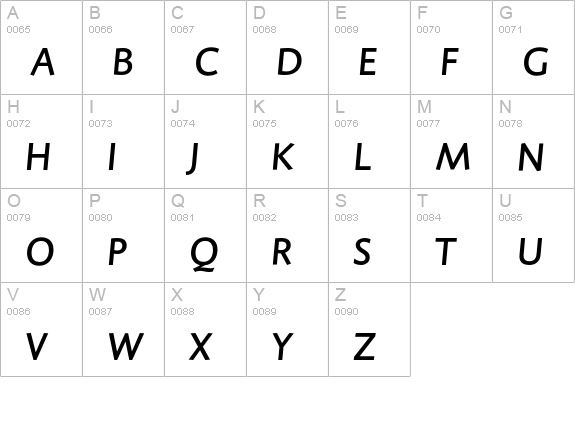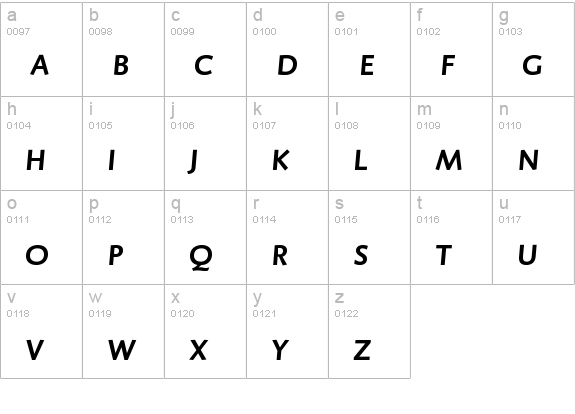
DTLCaspariTCaps-MediumItalic Font Details
DTLCaspariTCaps-MediumItalic is a sophisticated and elegant font that exudes a sense of class and refinement. With its medium weight and italic style, this font is perfect for adding a touch of distinction to any design project. The tall caps and sleek lines of DTLCaspariTCaps-MediumItalic make it stand out while maintaining a sense of professionalism. Best of all, this exquisite font is available for free download at FontsMarket.com. Whether you're working on a branding project, invitation design, or any other creative endeavor, DTLCaspariTCaps-MediumItalic is sure to elevate your work to the next level. Don't miss out on the opportunity to enhance your projects with this stunning font that is both stylish and easy to read. Download DTLCaspariTCaps-MediumItalic today and take your designs to new heights!